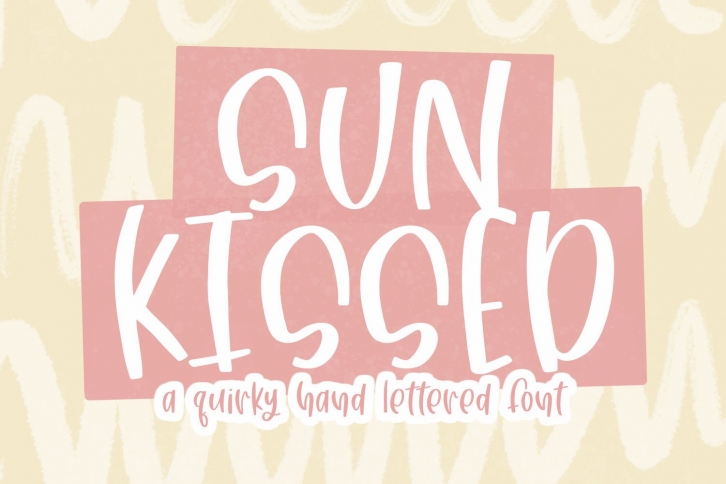
Sun Kissed is a beautiful font that was designed by Dansie Design. It's a great choice for designers and creatives who need such a font. It was released on March 21, 2022 and the file size is 11.48 MB. Sun Kissed may give a more youthful, expressive and casual look to your project. It is a very beautiful, refined, elegant, and high-quality font.